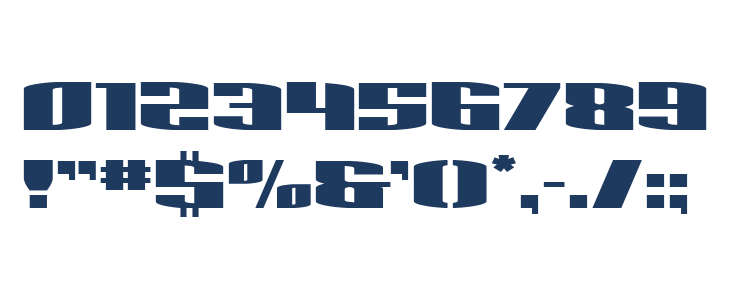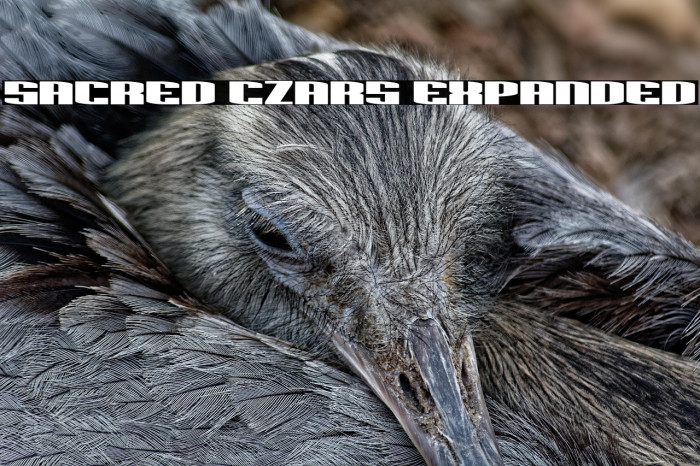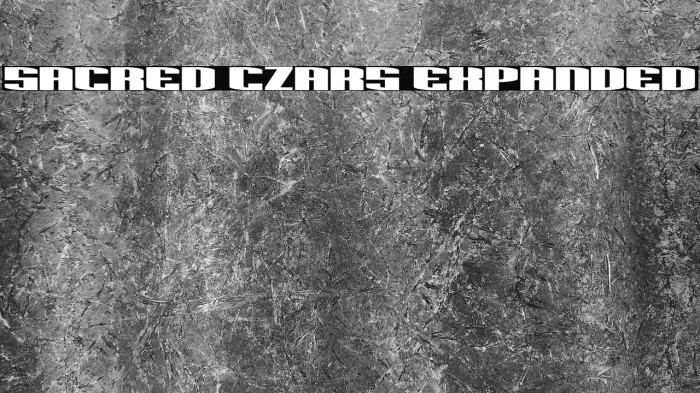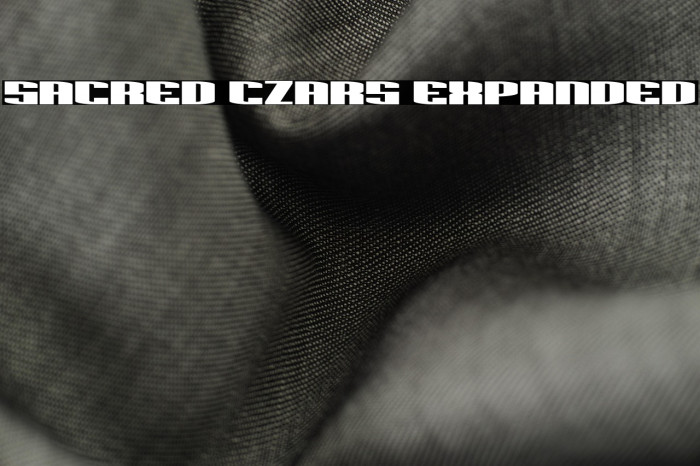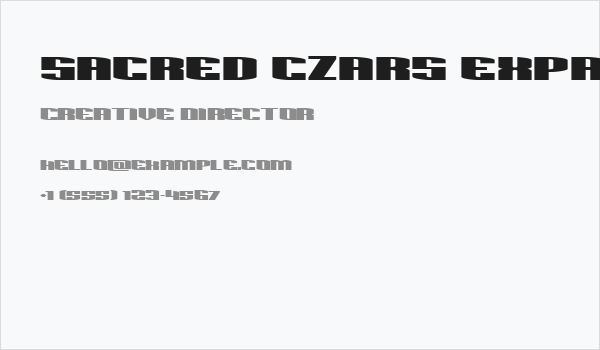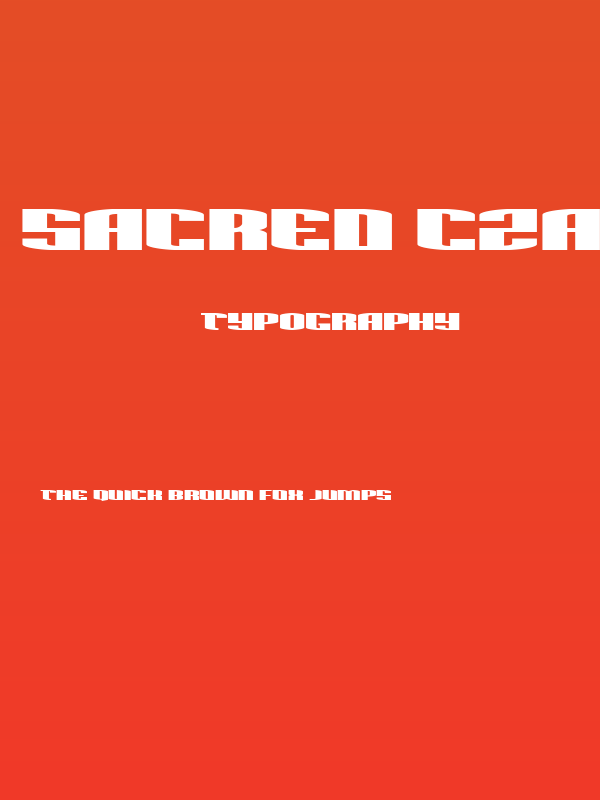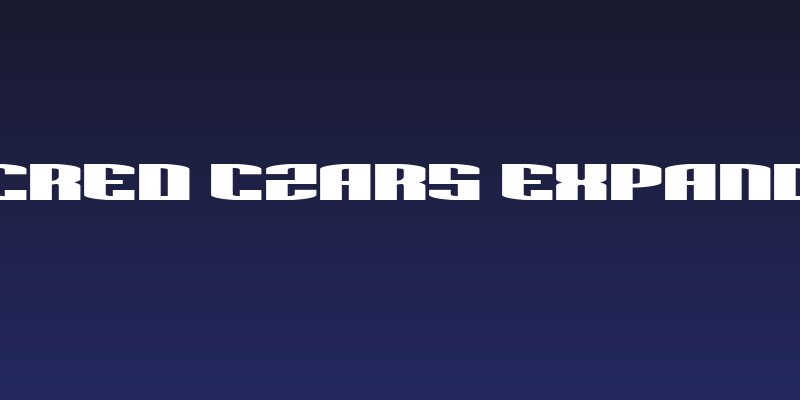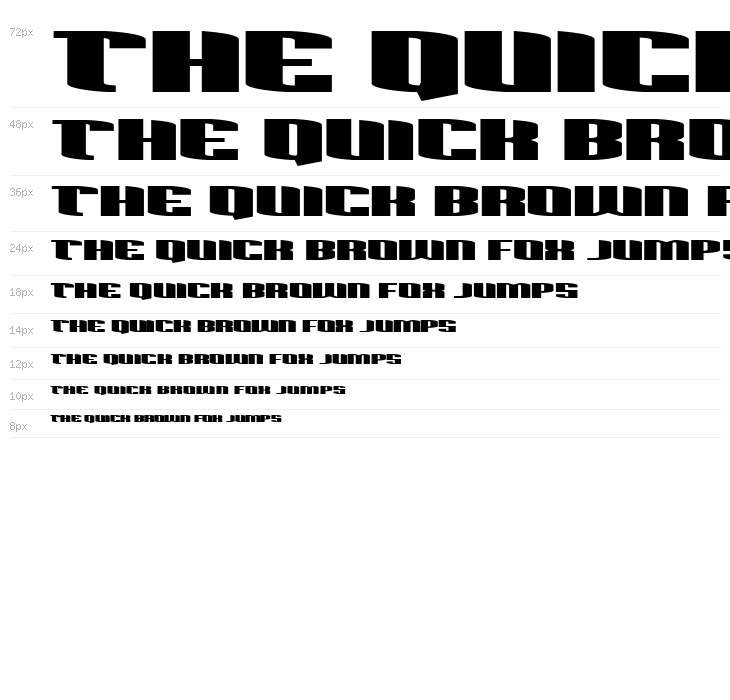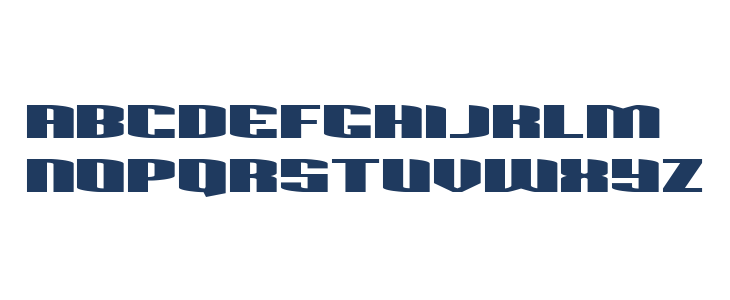
Sacred Czars Expanded Font
Sacred Czars Expanded Description
This font features a bold and striking design with a distinctly modern and futuristic aesthetic. The characters are wide and blocky, with a strong presence that commands attention. Each letter is crafted with sharp angles and a geometric style, creating a sense of power and stability. The uppercase and lowercase letters maintain a consistent width, contributing to a uniform appearance. The numbers and special characters follow the same design principles, ensuring a cohesive look across all elements. This font is ideal for projects that require a bold statement or a modern edge.
| Proposed Projects | Ideal for branding, posters, headlines, and any design requiring a strong, modern impact. |